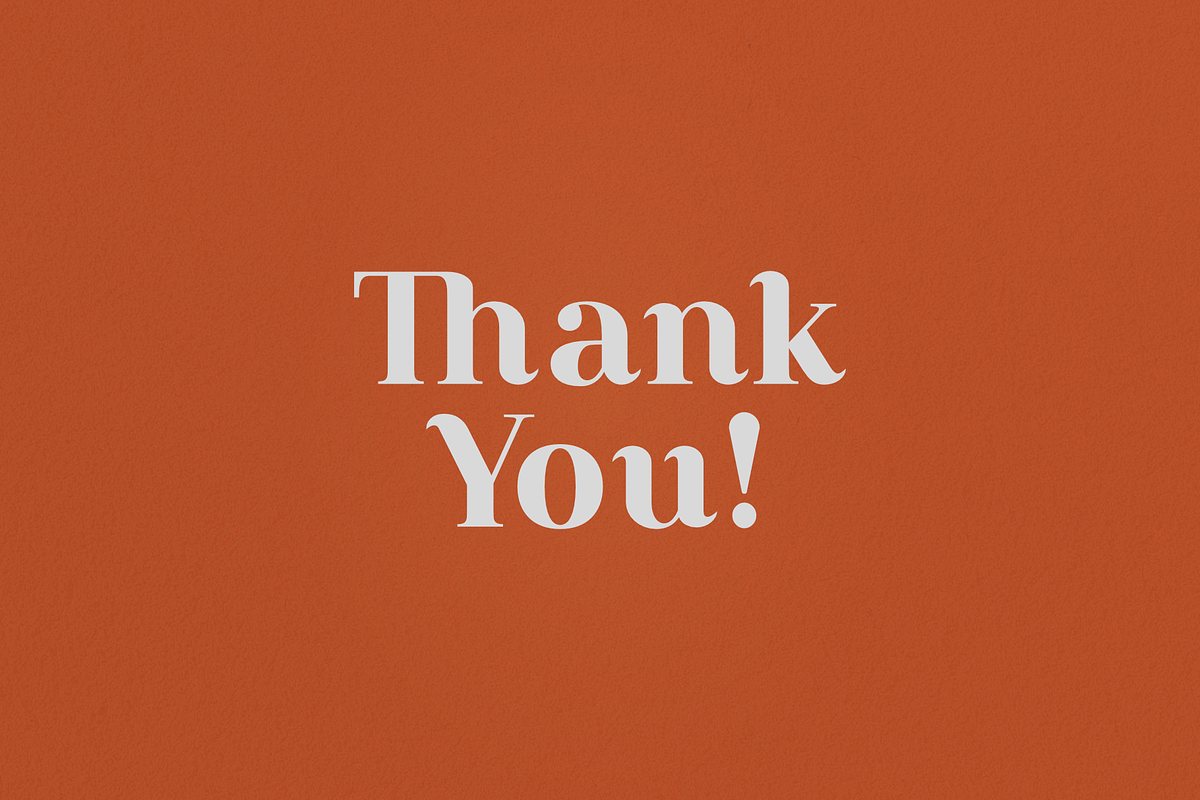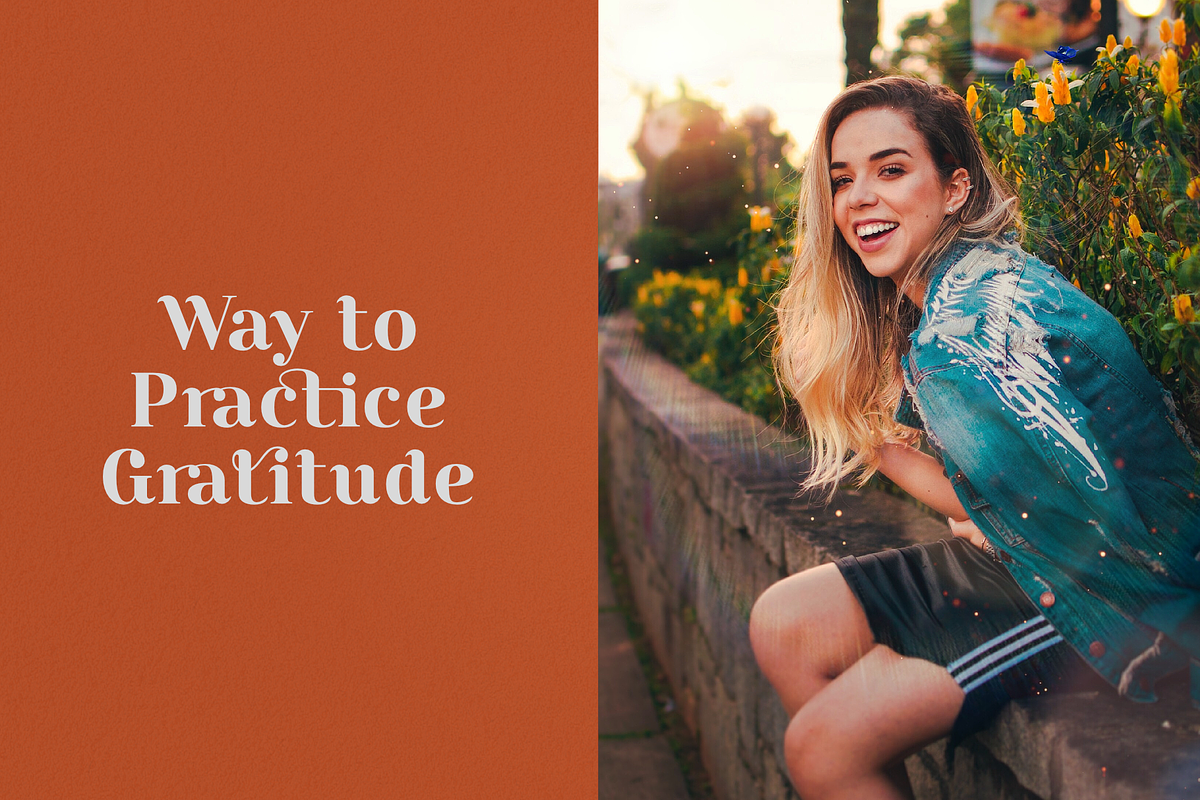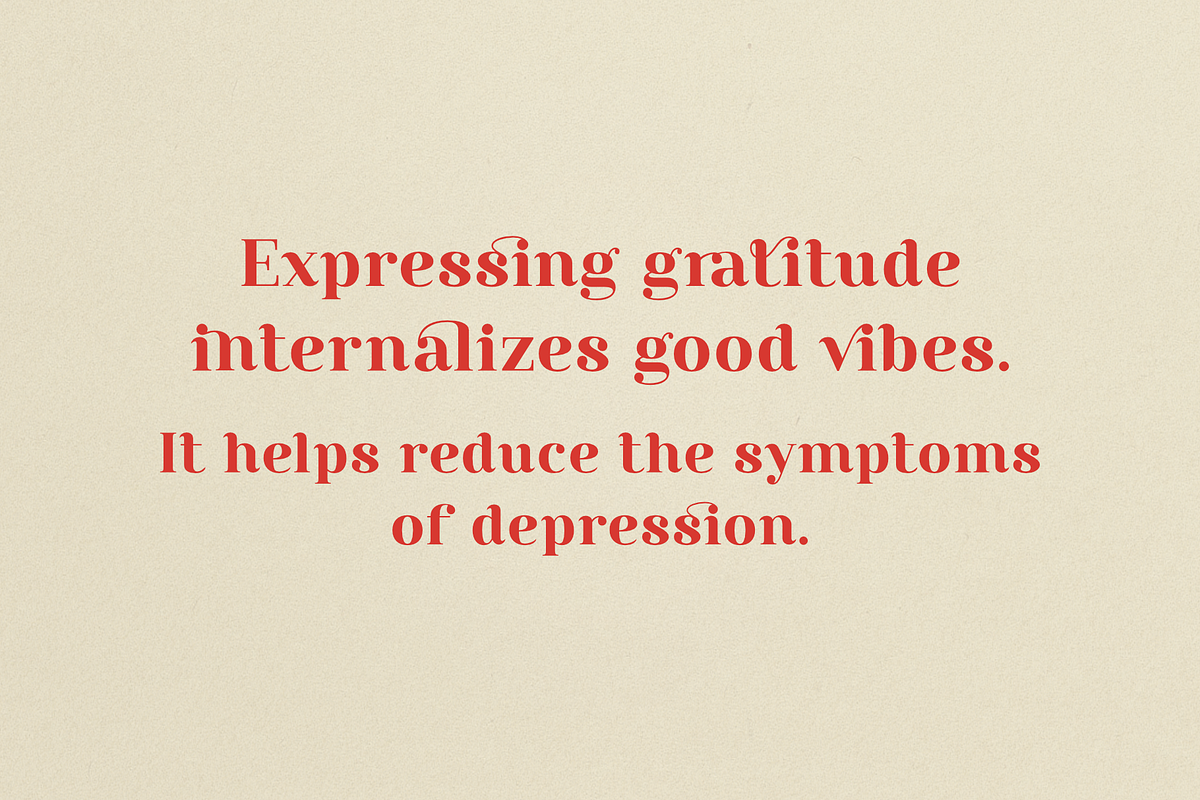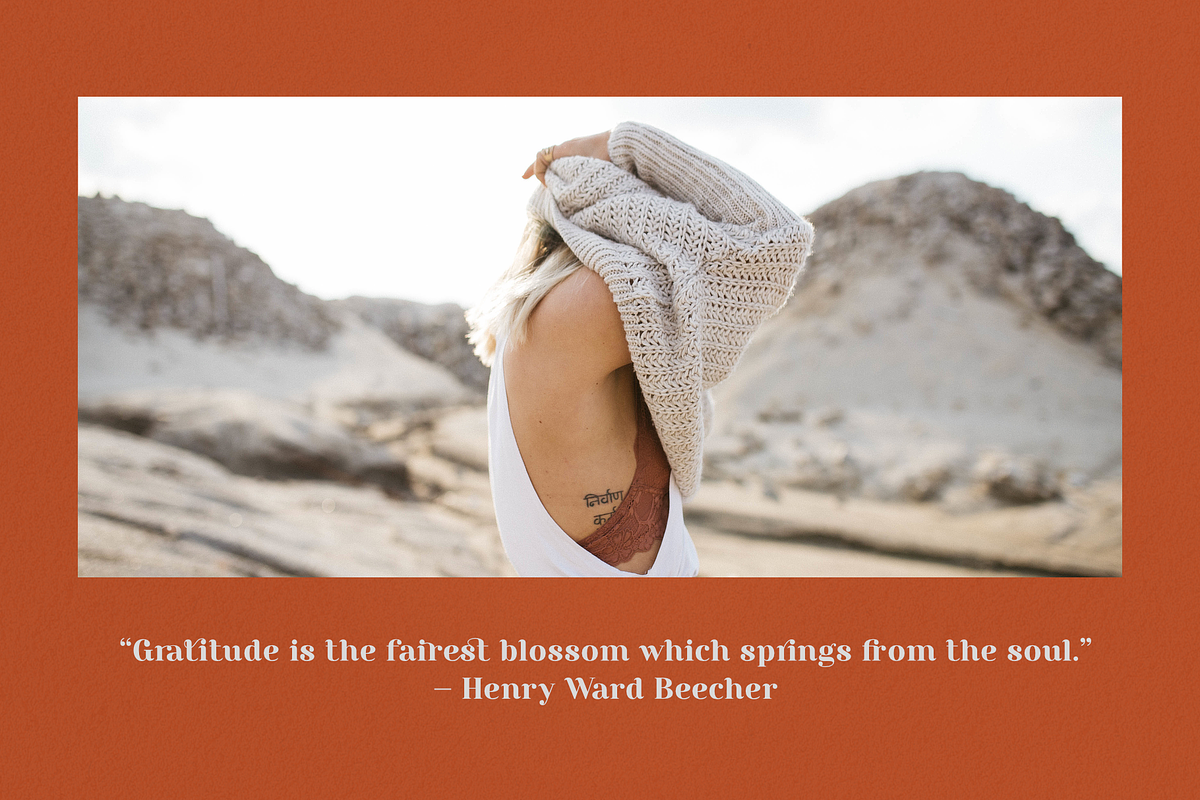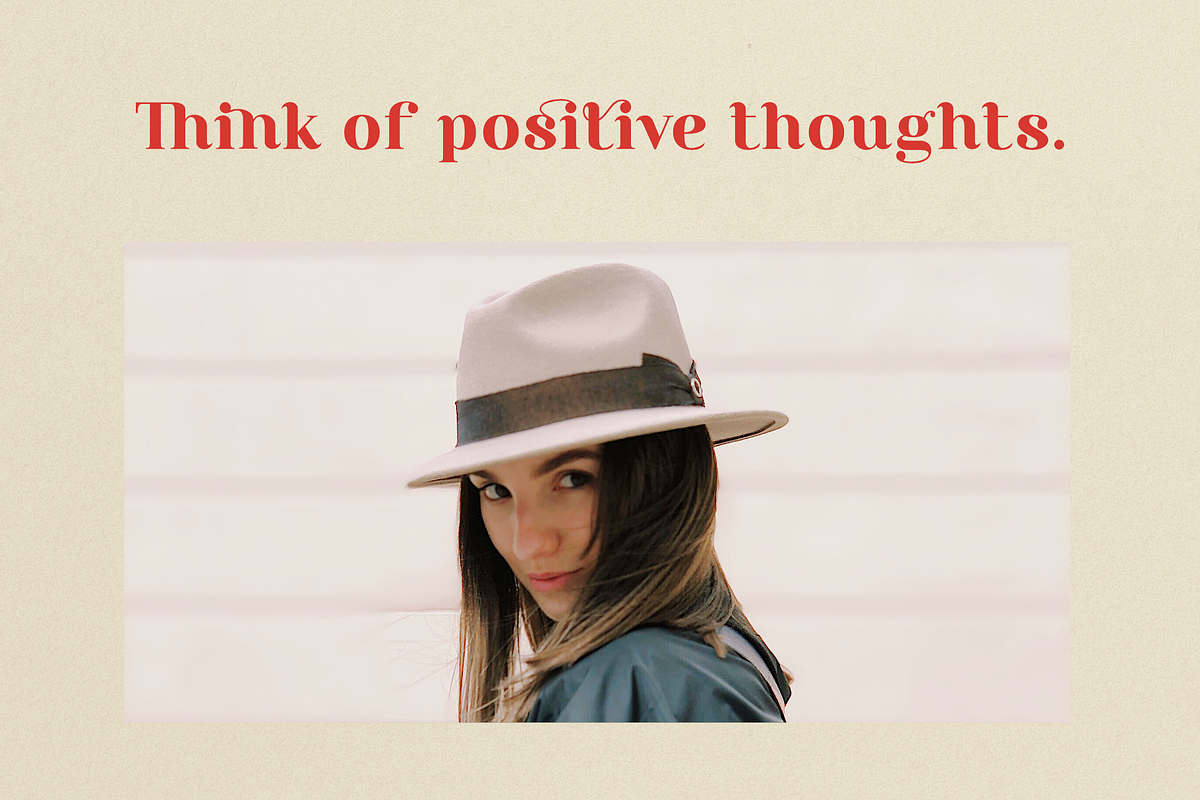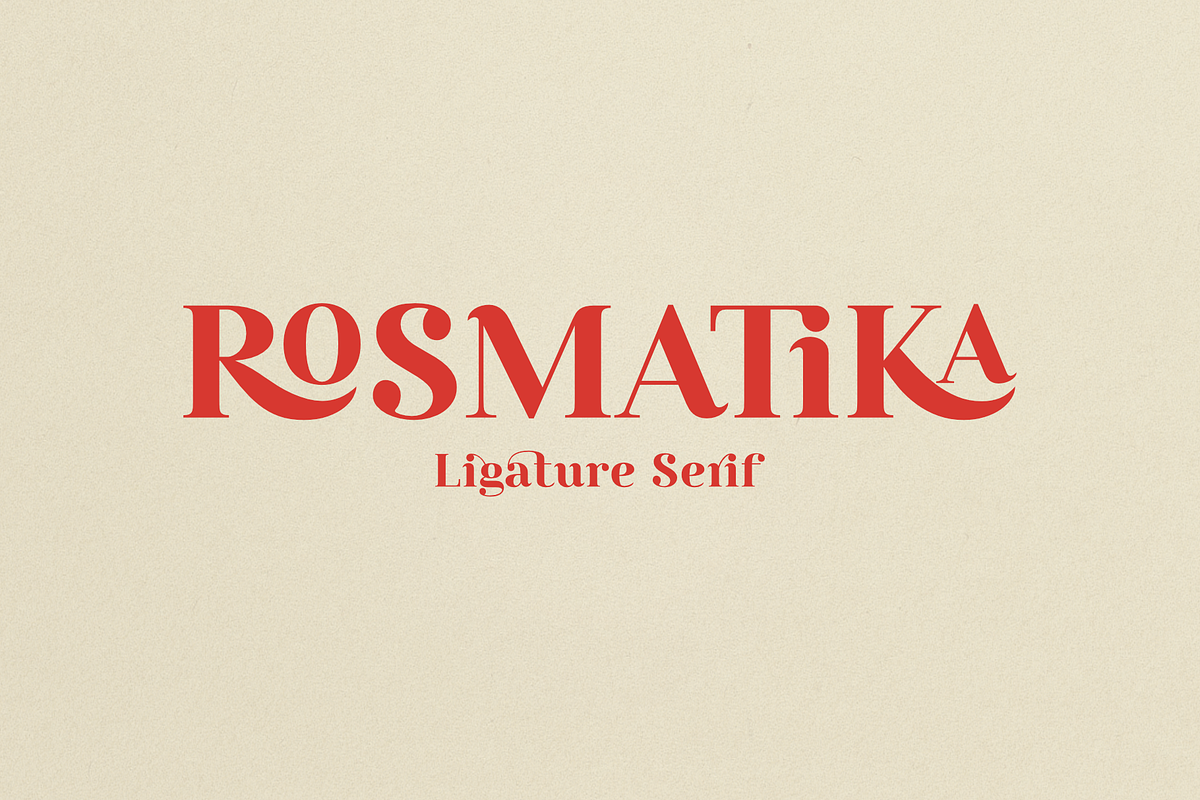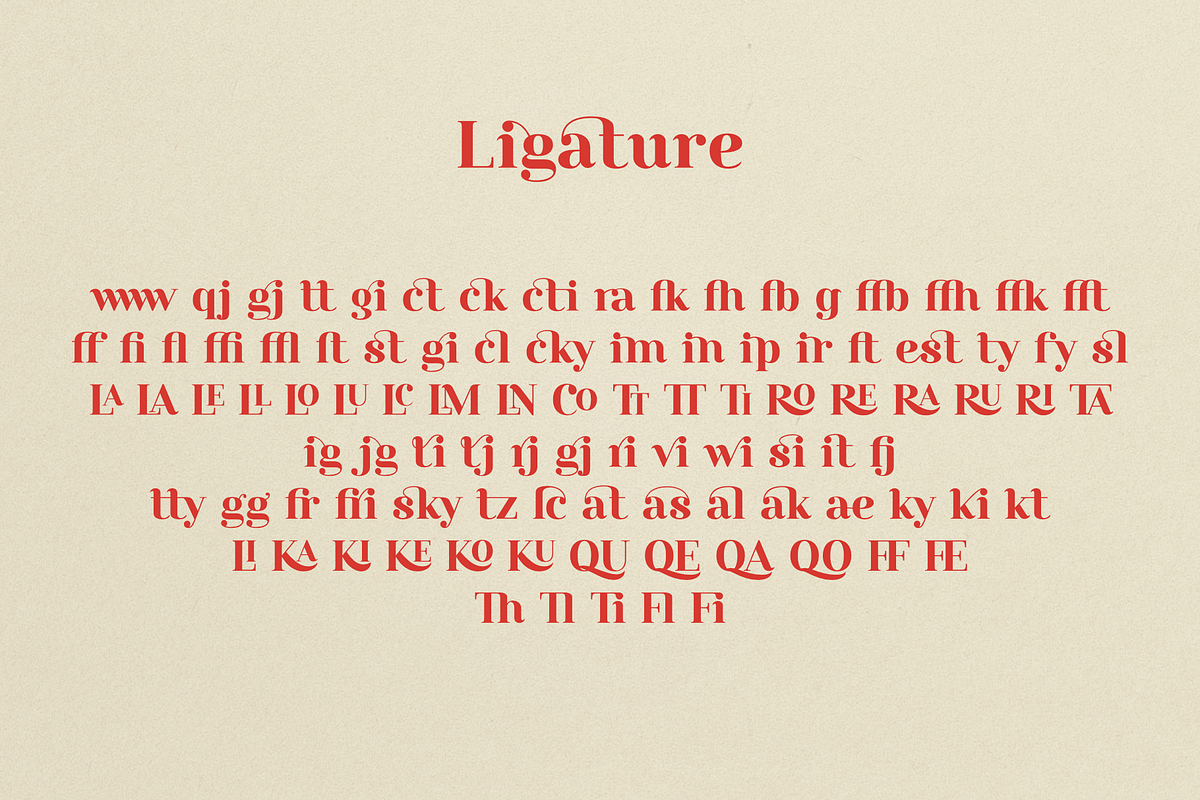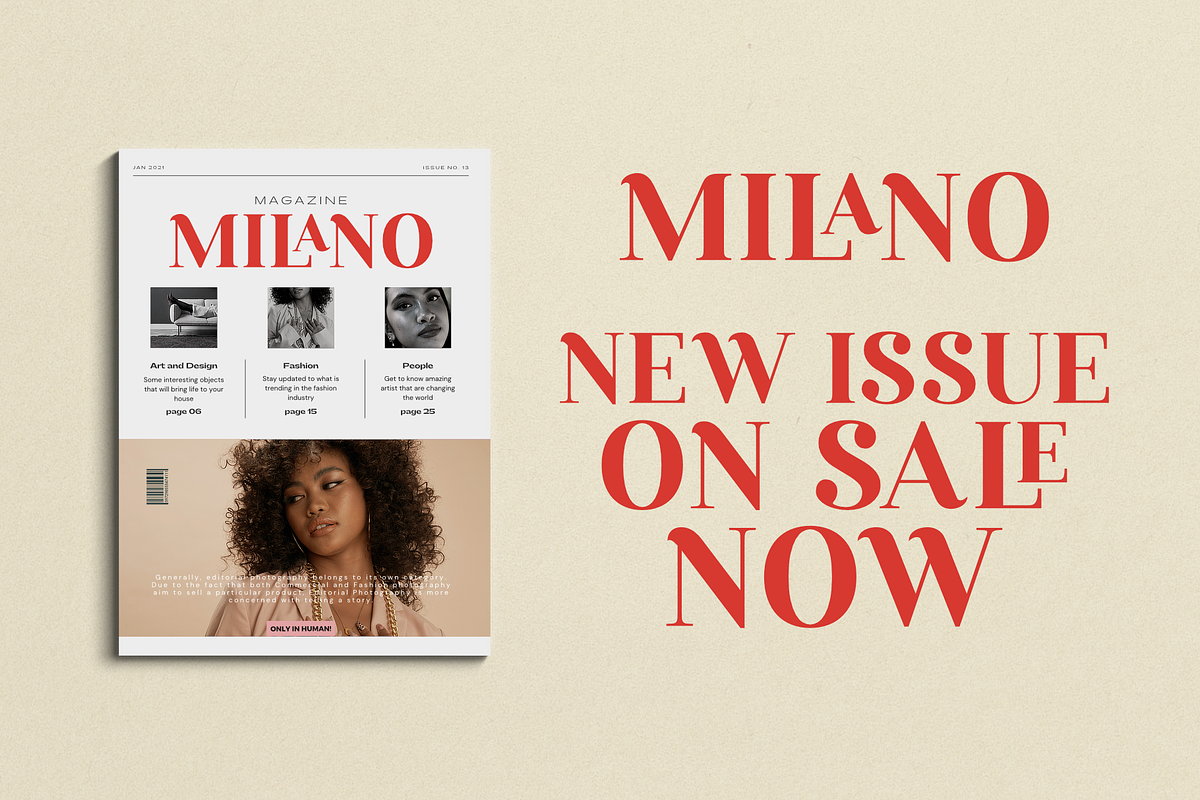
Rosmatika - Ligature Serif
Rosmatika is a contemporary Didone Serif with many ligature. This font is a display font with high contrast so it is suitable for use in branding projects, logos, wedding designs, social media posts, product packaging, labels, watermarks, invitations, advertisements and projects that require bold fonts and are easy to read. Rosmatika has more than 500 glyphs that support extended latin language and feature features such as standard and discretionary ligature, language specific forms, and manual alternate access.